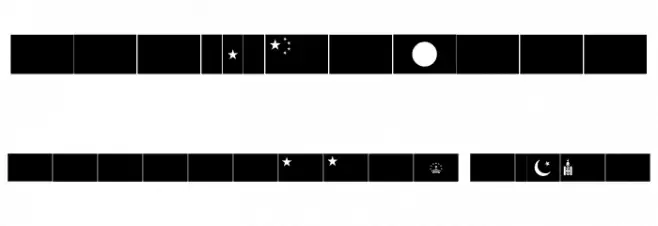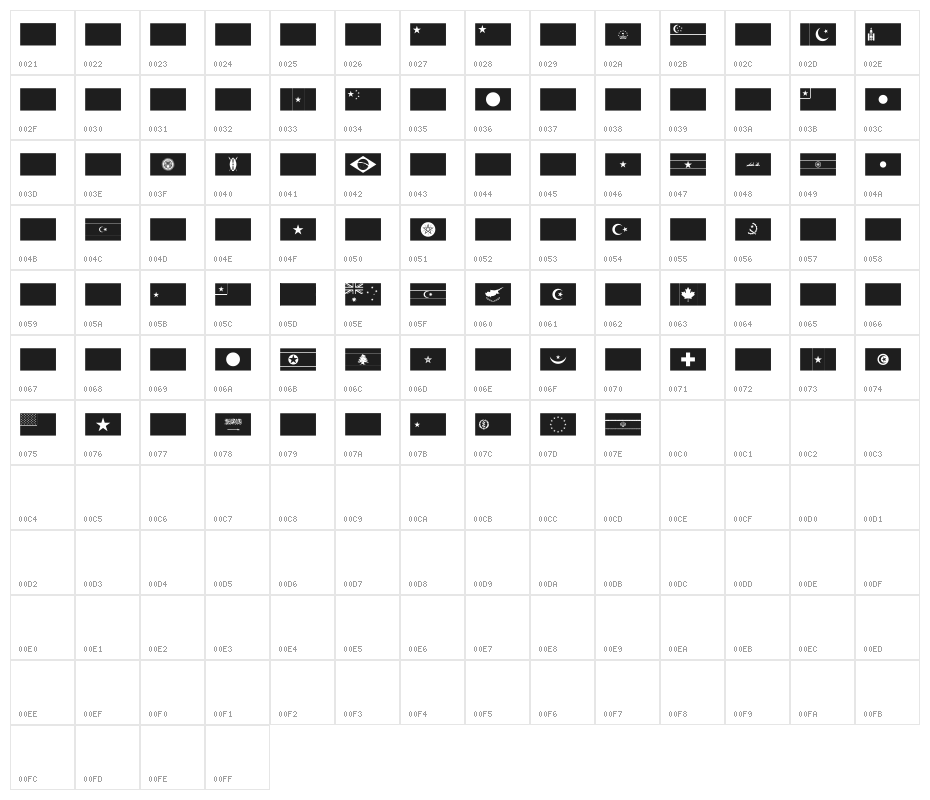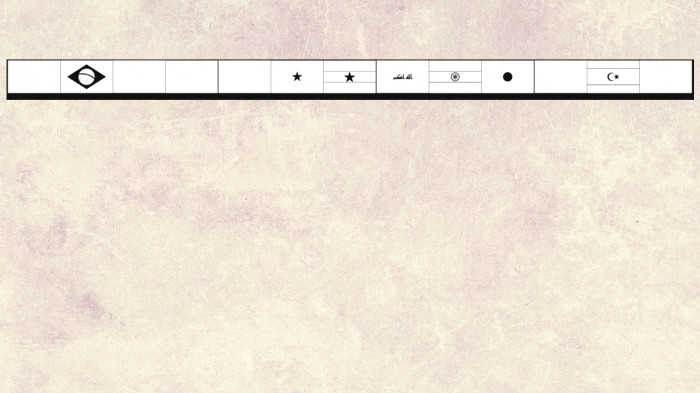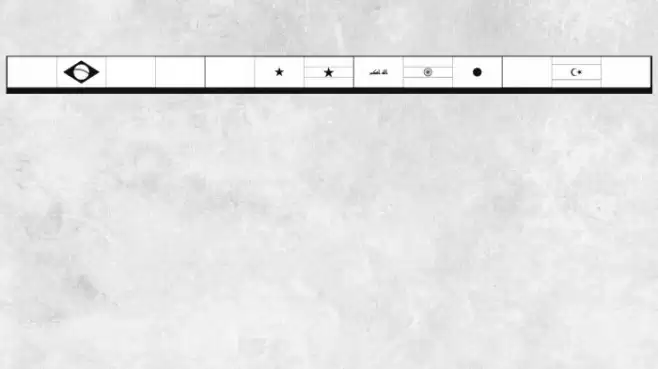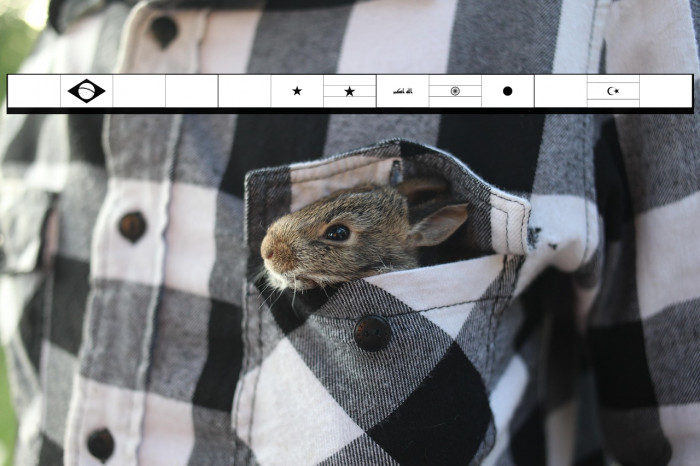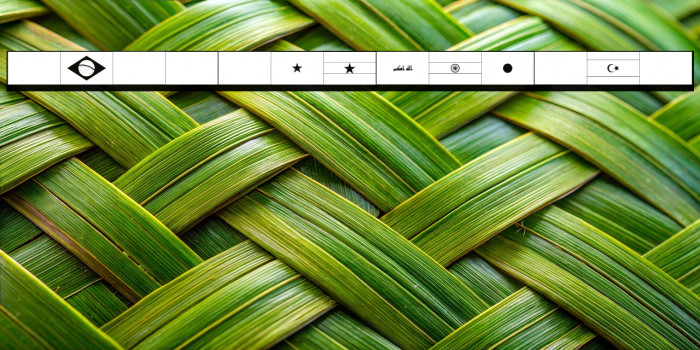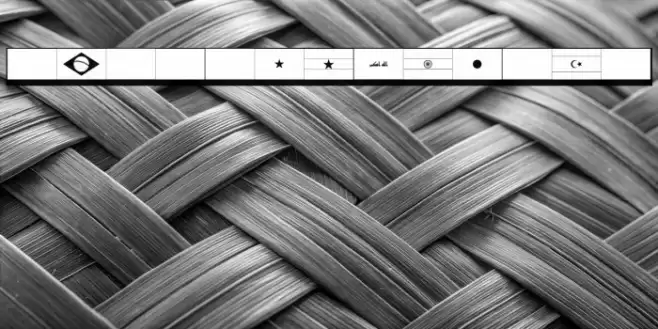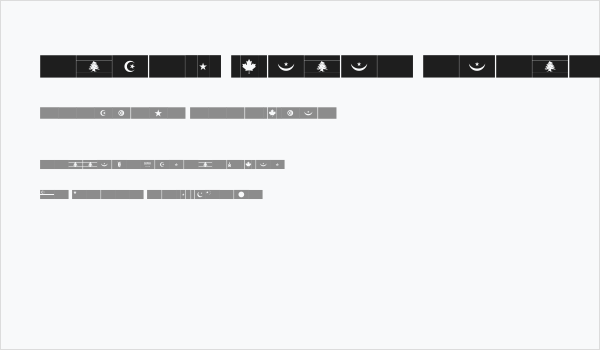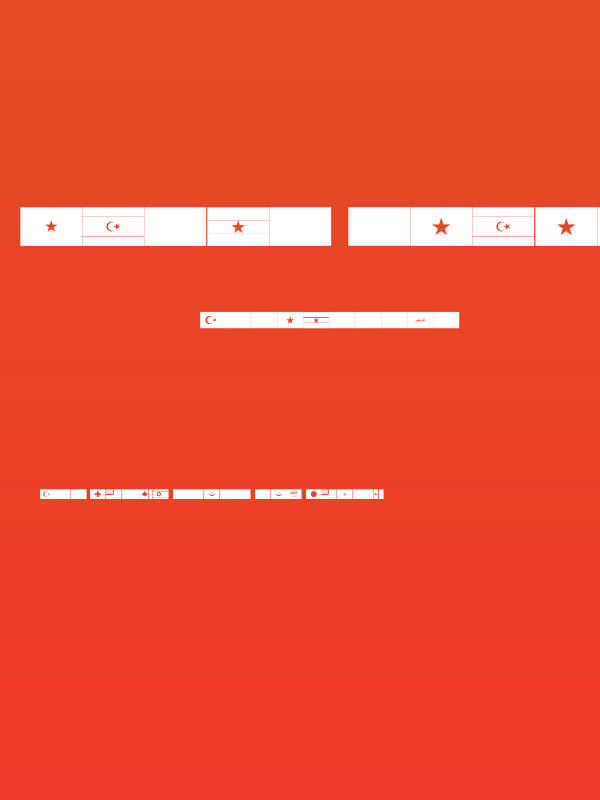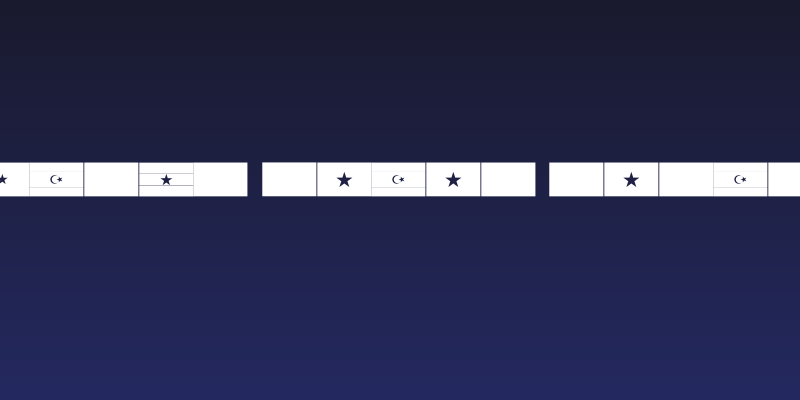
flags color world Font
flags color world Description
A decorative dingbat font featuring monochrome, simplified flag icons from various countries and regions, each contained within a rectangular glyph cell. The icons are highly stylized and minimal, focusing on key symbols or elements from each flag for easy recognition.
| Overall Style | Decorative, Minimalist, Iconic |
| Use Case | Icons, Infographics, Thematic displays, Educational resources |
| Proposed Projects | Educational materials, travel brochures, international event branding, infographics, flag quizzes, and cultural presentations. |